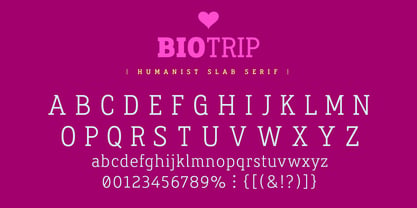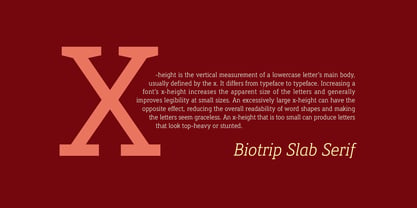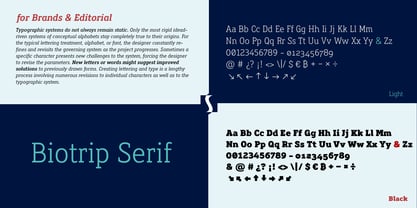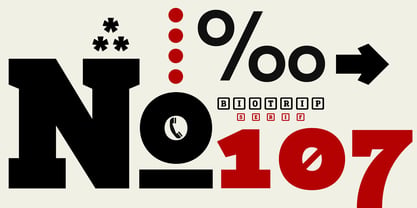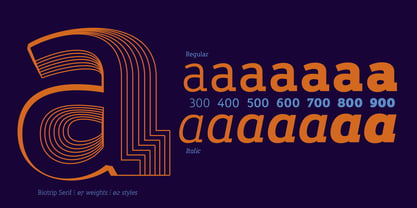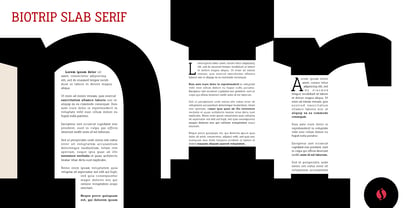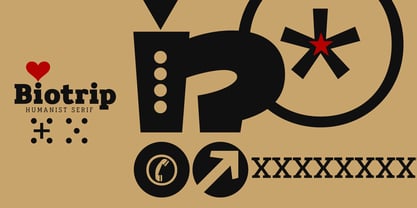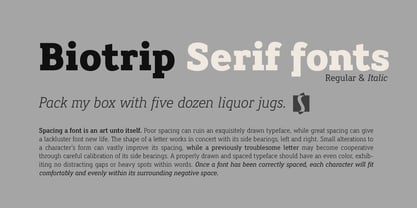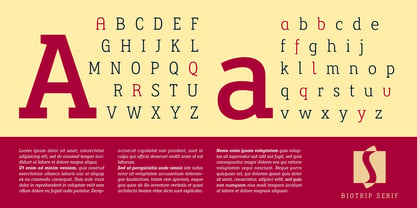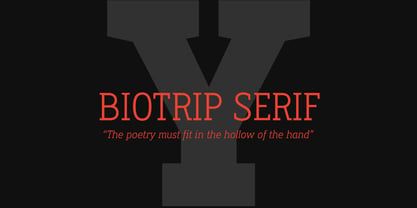
Biotrip Serif
by deFharo
Biotrip Slab Serif (Roman & Italic w/07 weights) is the direct descendant of Biotrip Sans, but it's not a faithful copy: it's the more adventurous version, the one that decided to adopt serifs and see the world with greater boldness. It's not a simple variant; it's a conscious reinterpretation. Where Sans flowed freely, Serif asserts itself with confidence, combining the solidity of stone with the warmth of the hand. Thus Biotrip Serif emerged, a natural extension of my Biotrip universe: a humanist and semi-geometric Slab Serif, with a lapidary spirit and roots in classic Egyptian typefaces, reinterpreted through my own sensibility, adding gravity, texture, and character without losing the softness and humanity of the original stroke. Biotrip Serif is designed to be multipurpose. It works with the elegance of an editorial typeface, but also with the authority that a strong corporate identity demands. It's equally at home on a poster as it is on the packaging of a product that aims to be minimalist "yet warm"—you know, that order you get every two weeks. The Complete Family: Precision and Expression Biotrip Serif comprises 14 fonts, distributed across 2 styles (Roman and Italic) and 7 weights: Light, Regular, Medium, Semi Bold, Bold, Extra Bold, and Black. A complete range for building clear hierarchies, robust visual systems, and designs with character, combining the strength of a slab serif with the softness of a humanist design, all within the same family. The family incorporates a wide typographic repertoire: - 6 complete sets of numbers for editorial and technical precision. - 3 sets of uppercase letters. - 5 sets of lowercase letters for achieving unique typographic nuances.
Designers: Fernando Haro
Foundry: deFharo
deFharo is the independent type foundry of Spanish graphic and type designer Fernando Haro. With more than 30 years of experience in graphic and advertising design and over a decade devoted to typeface design, Fernando Haro has developed an eclectic body of work that ranges from editorial and corporate typefaces to expressive display, geometric, technological, retro and experimental designs. His approach combines visual character with typographic functionality. Every typeface begins with drawing, proportion and a clear visual idea, and evolves through meticulous work on spacing, metrics, kerning, optical corrections and OpenType features. Rather than following a single recognizable style, deFharo explores different typographic territories according to the personality and purpose of each project. Some families are designed for long-form reading and editorial systems; others are built for branding, headlines, packaging, signage or highly expressive graphic compositions. A strong interest in vector drawing, typographic systems and functional design runs throughout the collection. Alternative characters, small caps, Petite Caps, fractions, numerals, ligatures, symbols and extended language support are frequently developed as integral parts of the typeface rather than as afterthoughts. The result is a growing collection of typefaces designed to be both distinctive and useful — fonts with personality, but also with the technical precision required for professional graphic and editorial work. deFharo typefaces are designed by Fernando Haro and published independently from Spain.